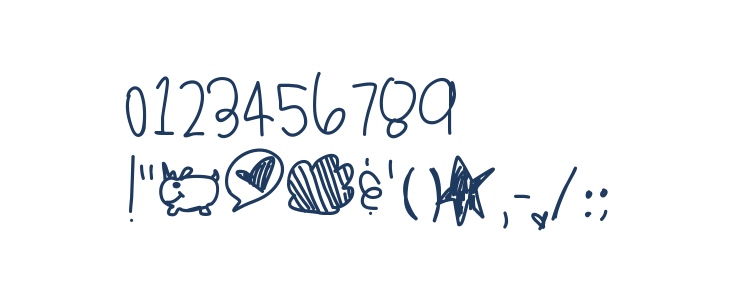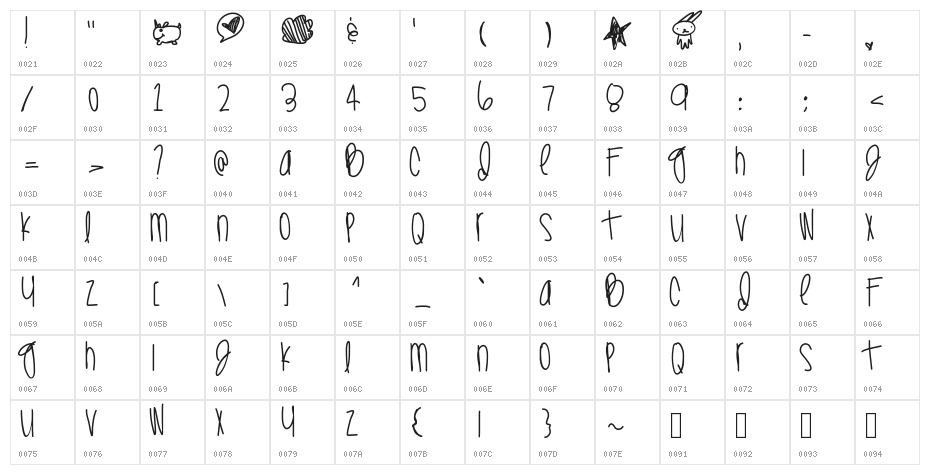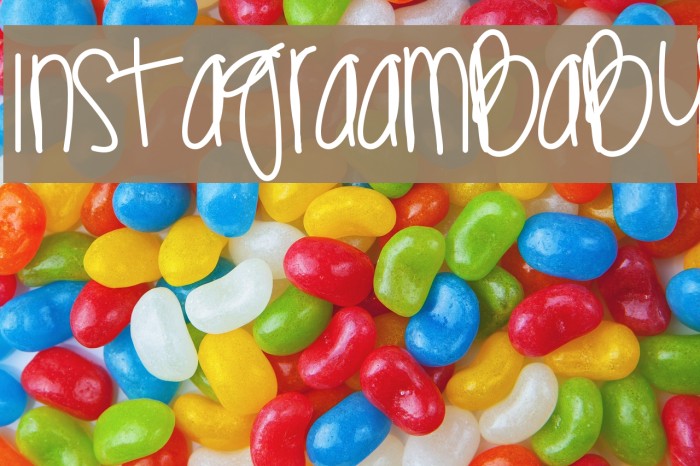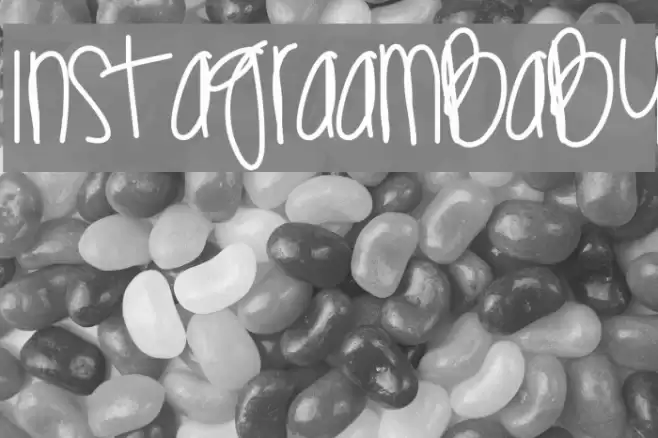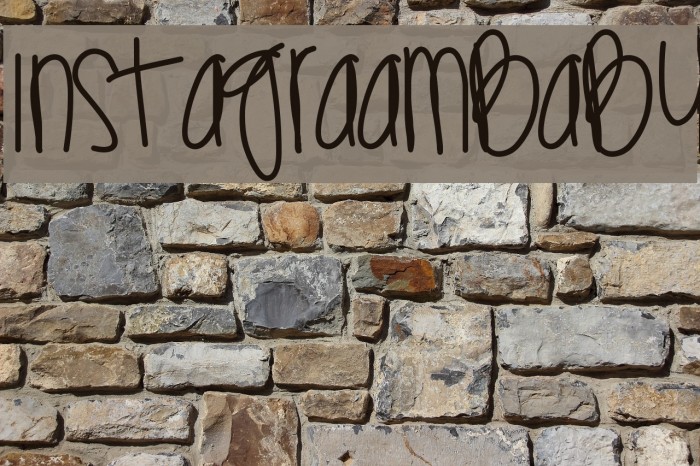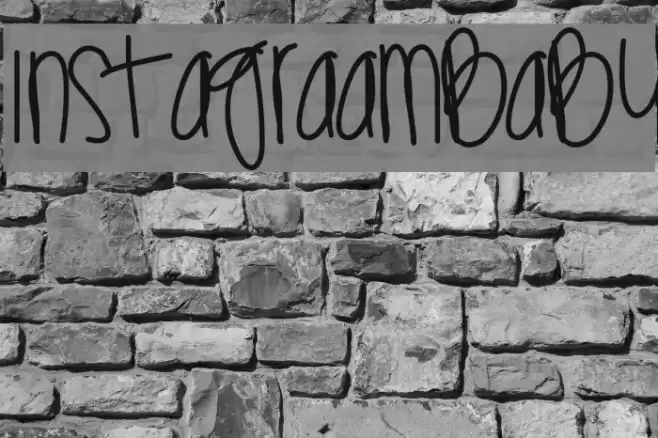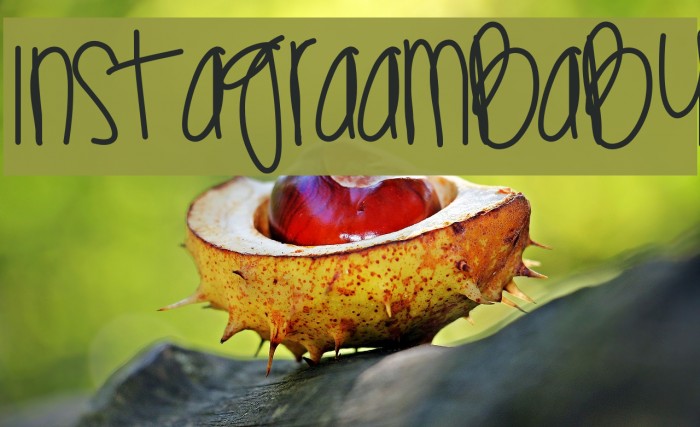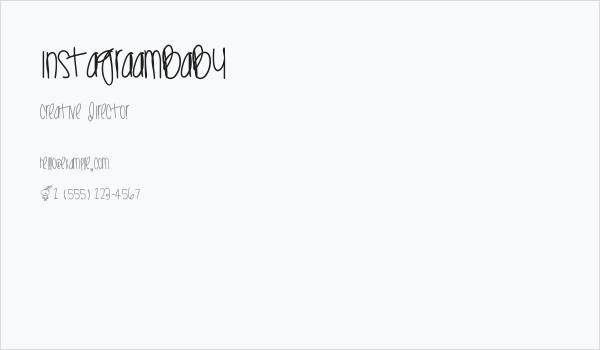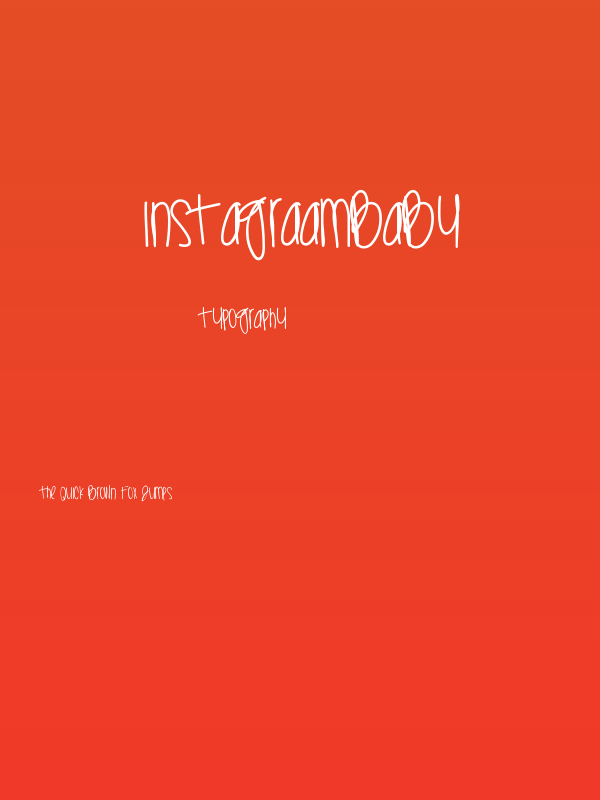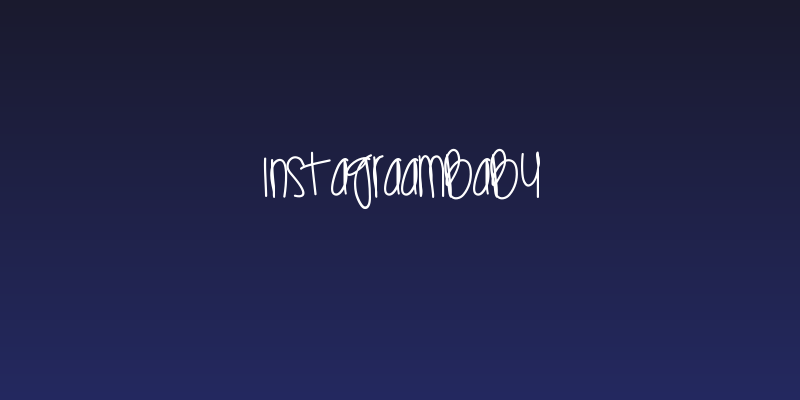
InstagraamBaby Font
InstagraamBaby Description
This playful and whimsical font features a handwritten style with a casual and informal appearance. The letters are tall and narrow, with a consistent stroke width that gives it a uniform look. The characters have a slight slant, adding to the dynamic and lively feel. The uppercase and lowercase letters are distinct yet harmonize well together, maintaining a cohesive aesthetic. The numbers are clear and legible, matching the overall style of the alphabet. Special characters are creatively designed, incorporating playful elements that enhance the font's charm. This font exudes a youthful and energetic vibe, making it perfect for projects that require a touch of fun and creativity.
| Use Case | Logos, Headlines, Social Media |
| Proposed Projects | Ideal for children's books, greeting cards, playful branding, and social media graphics. |